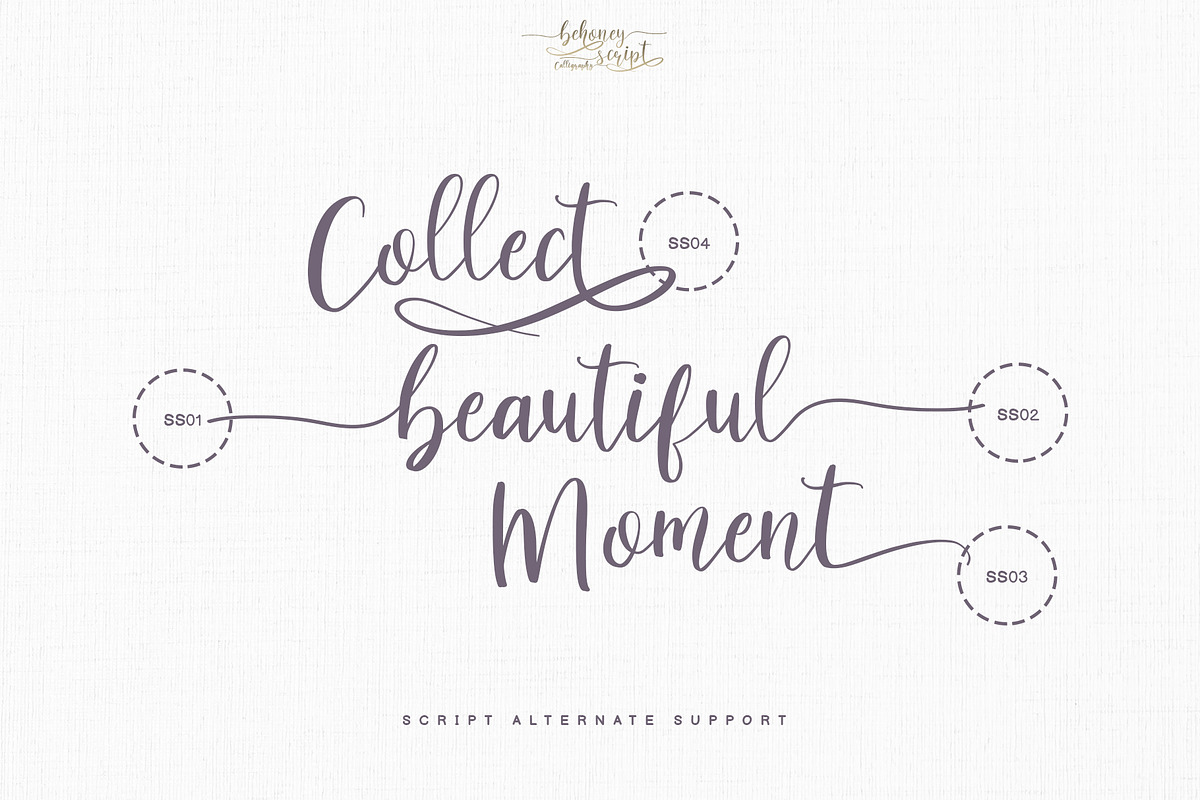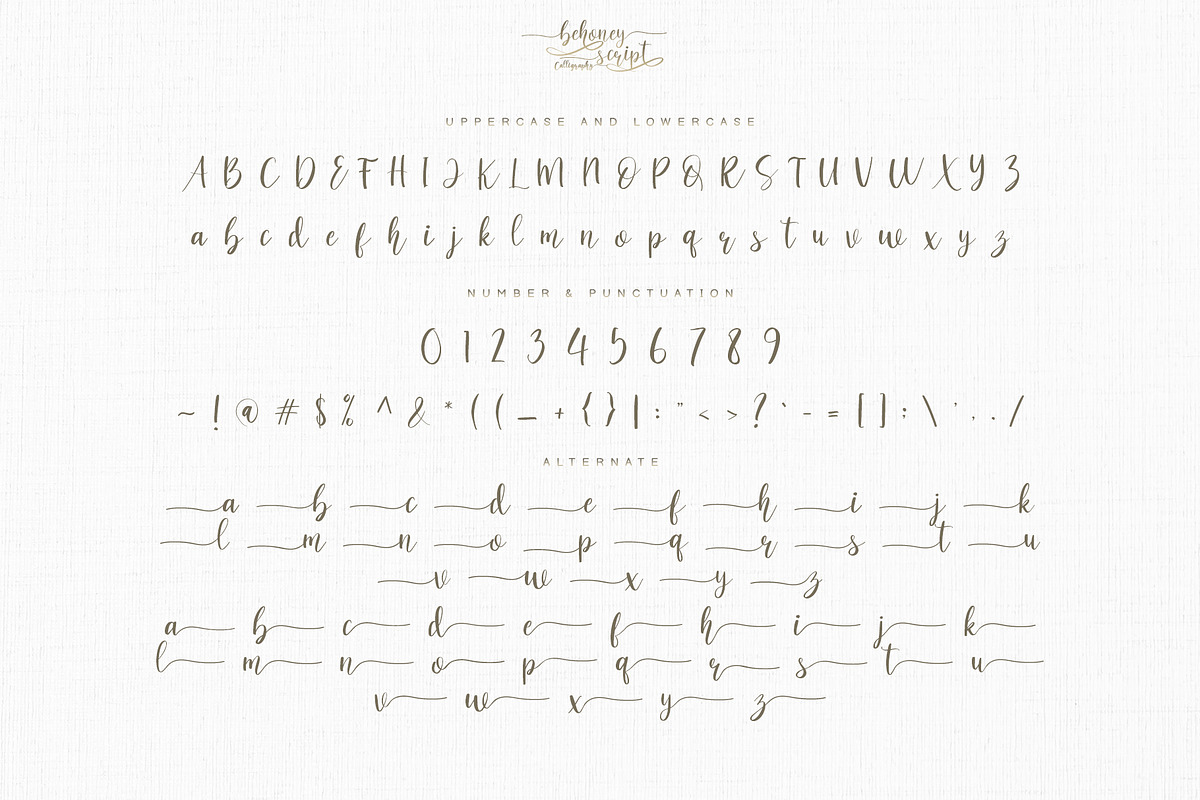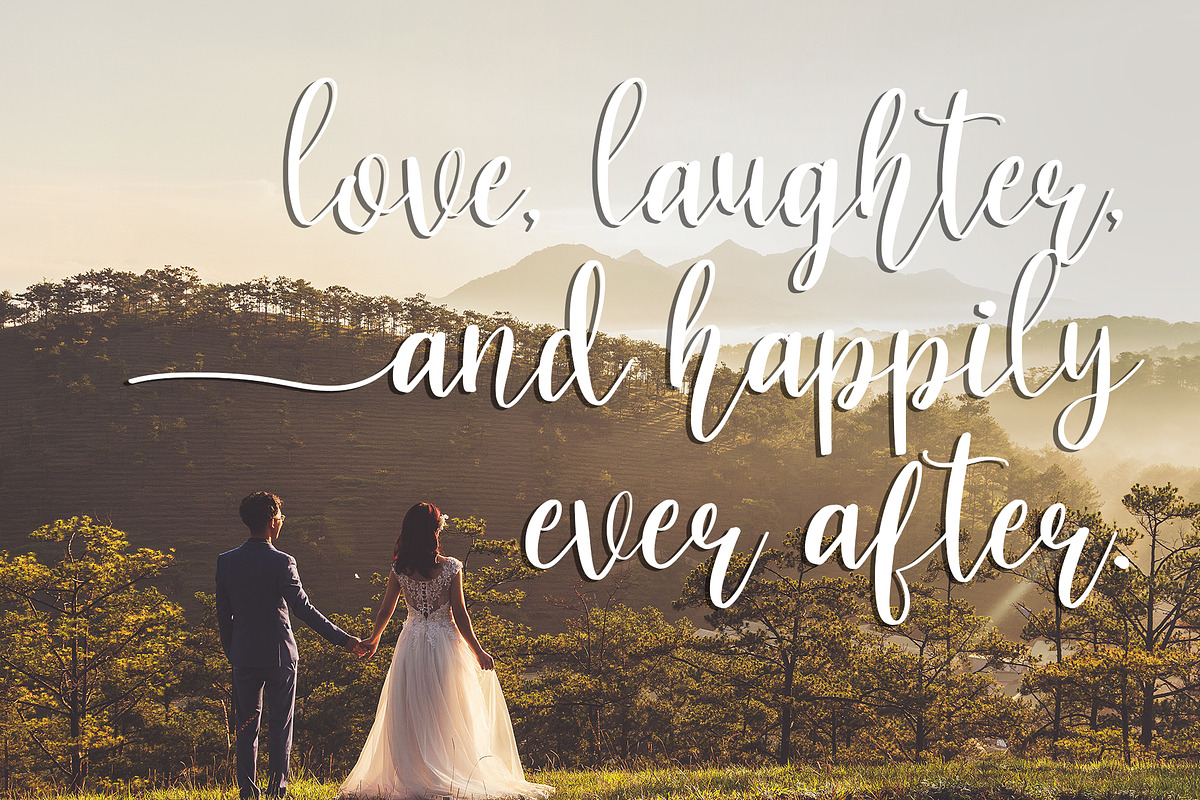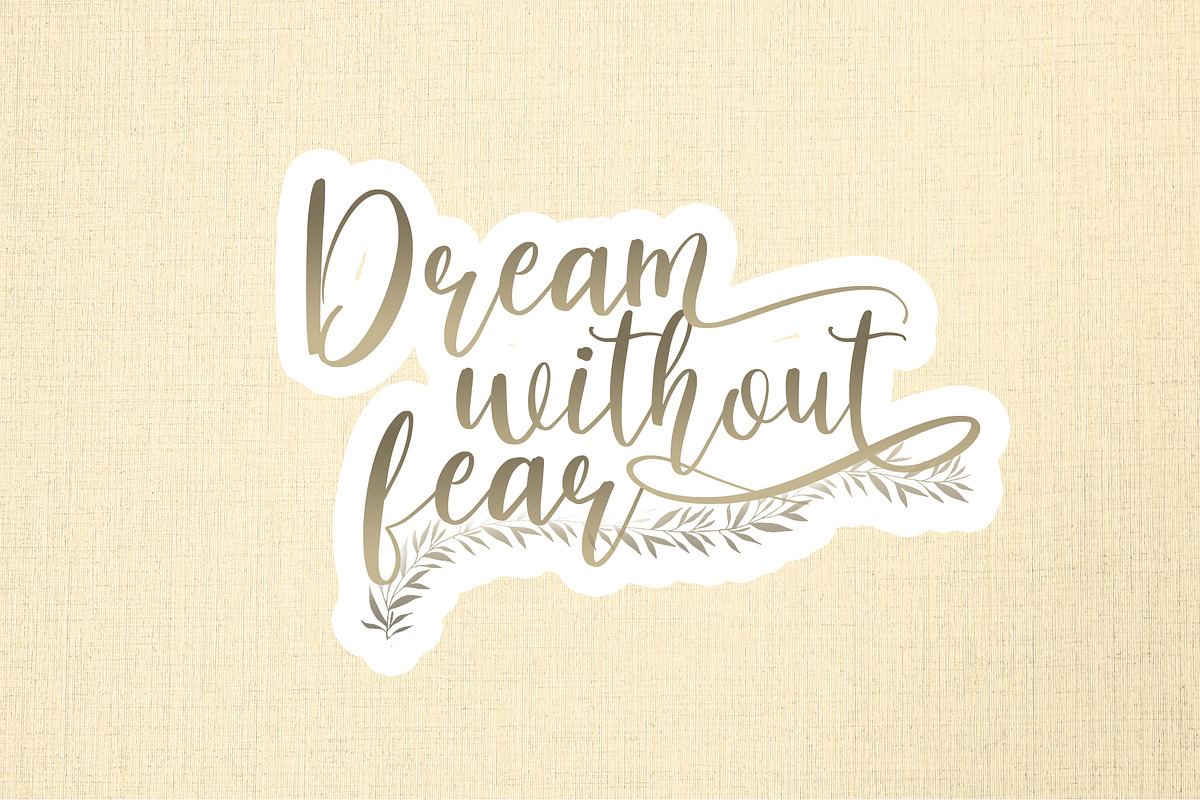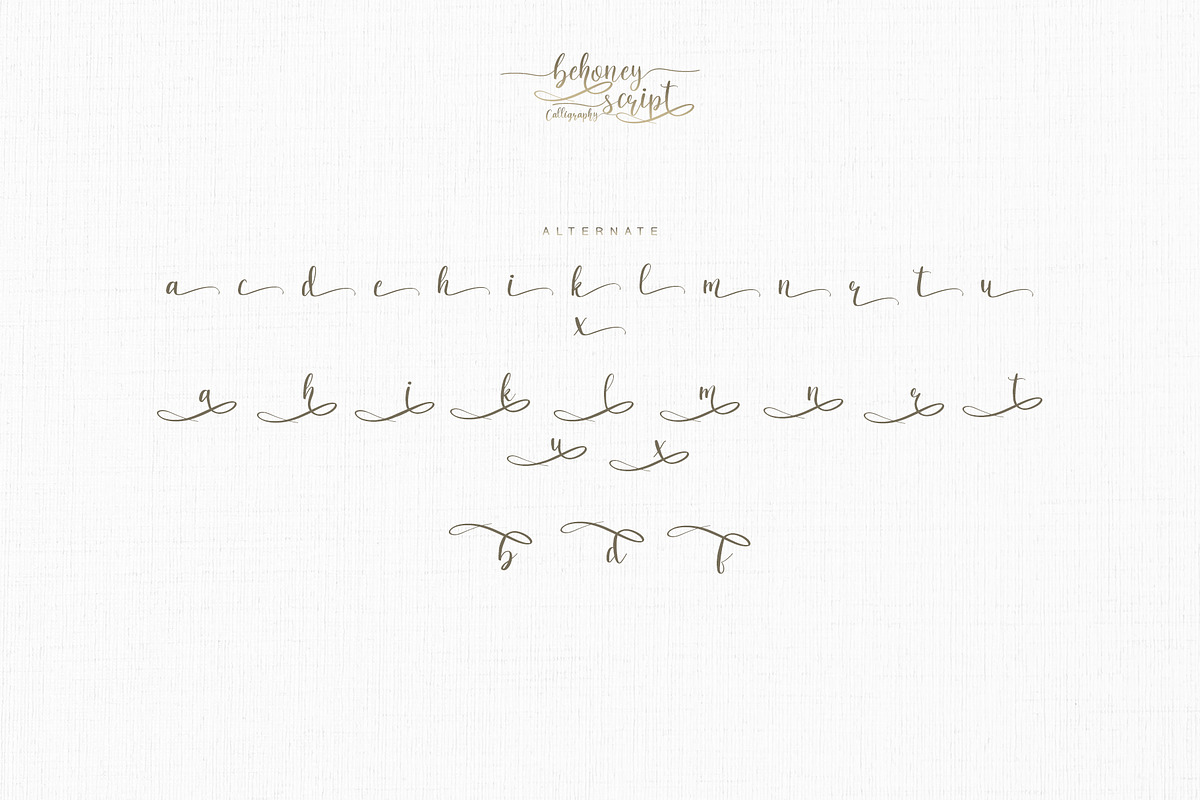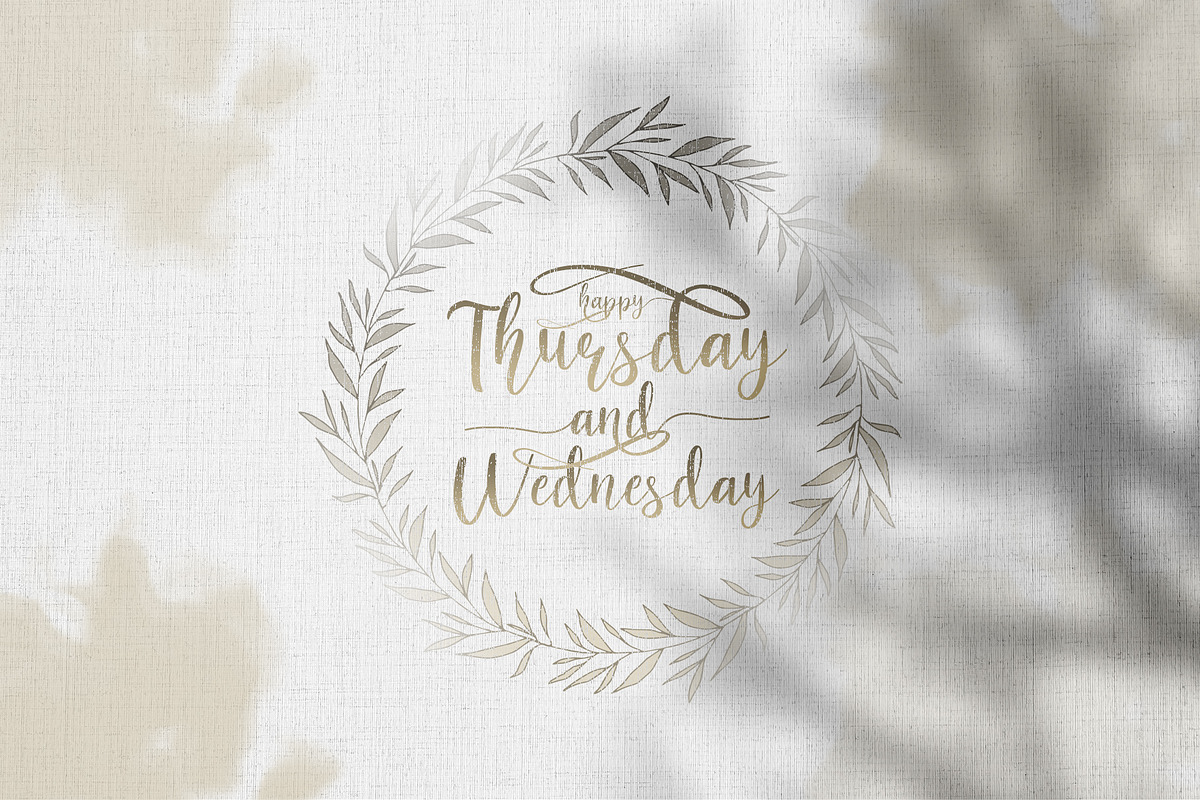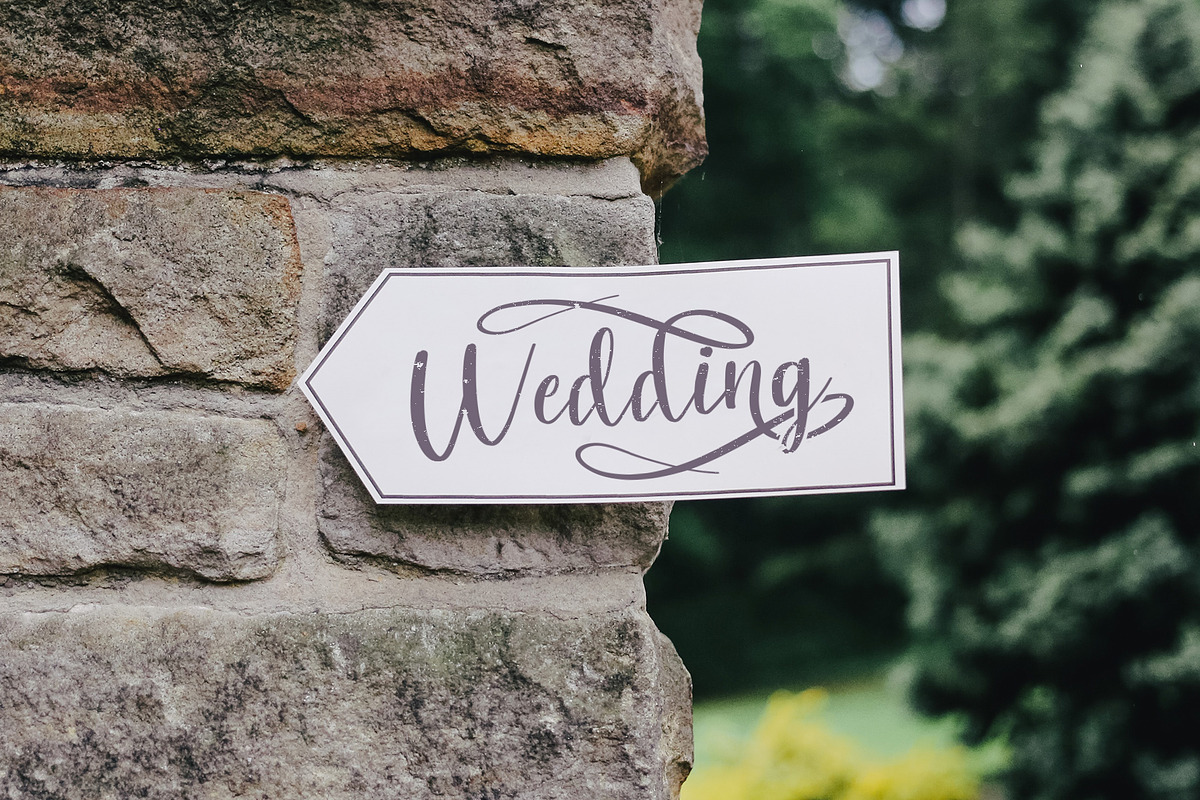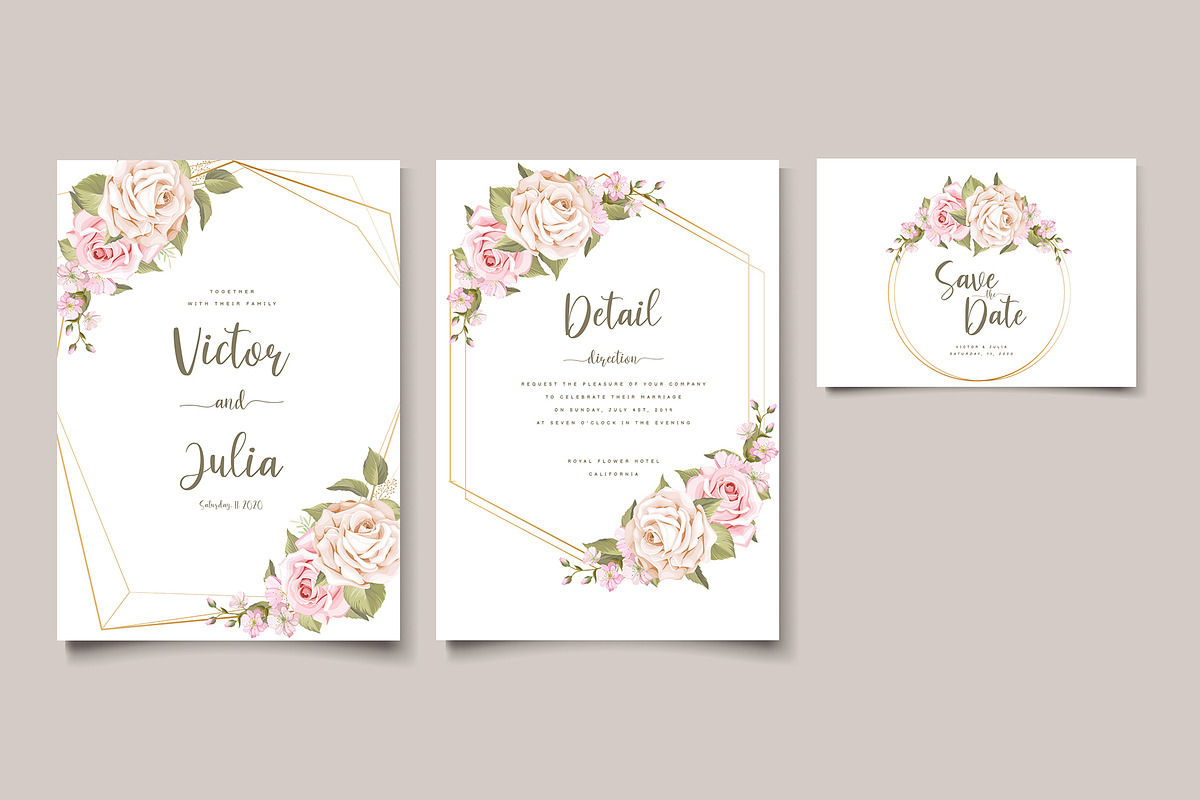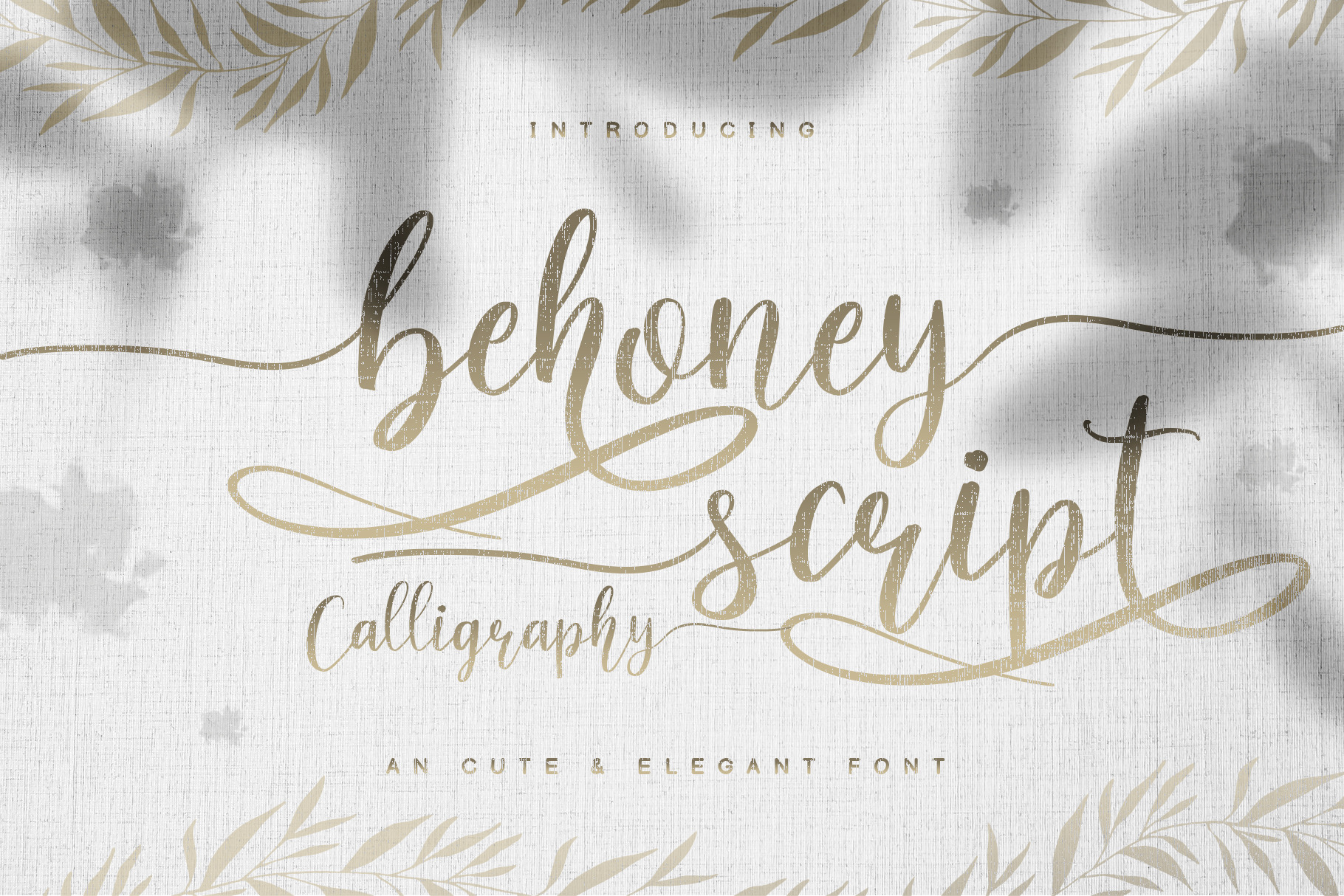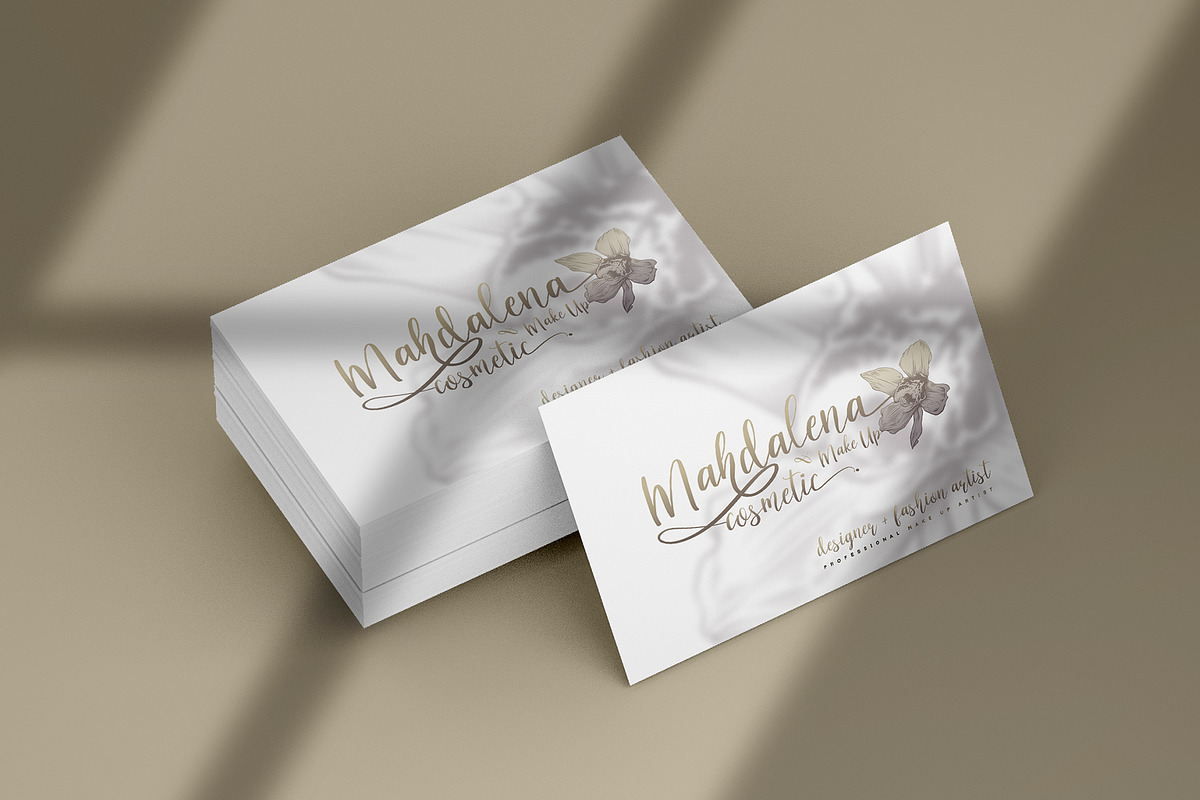
behoney Modern Script Font
behoney script is a modern Calligraphy font . I hope this font perfect for creating wedding card intvitation ,rsvp, and best for suitable for feminine logos or branding.
behoney script includes full set of beautifull hand lettered uppercase ,lowercase , numerals, ligature,and ending lowercase.